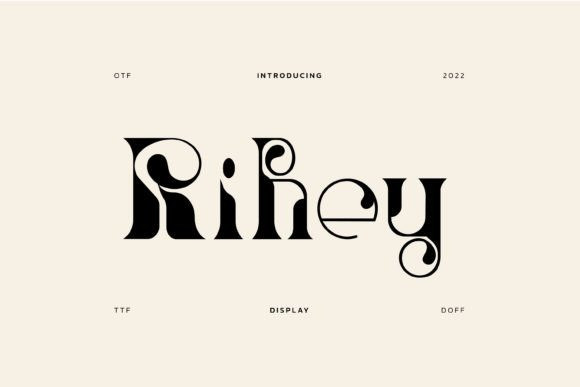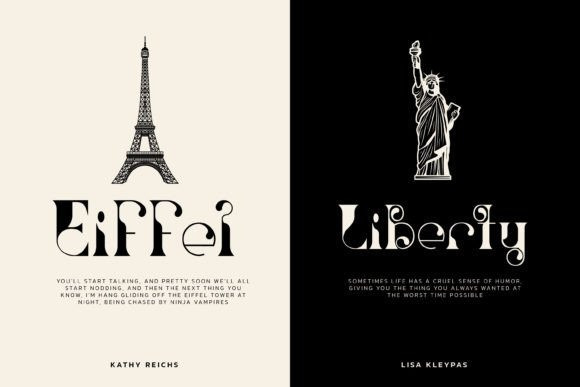
Rihey Font
Incredibly stylish and unique, Rihey is an elegant display font that will definitely make a lasting impression. Its artistic features will bring an exquisite art-nouveau vibe to any project you wish to create!